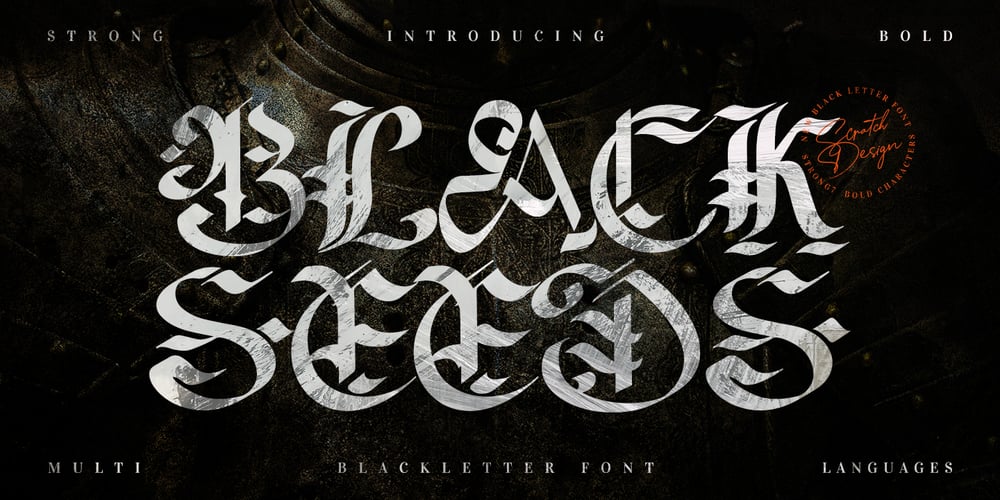
Blackseed
Blackseed font
Blackseed Font Family was designed by Gitayogi Irhandi and published by Scratch Design. Blackseed contains 1 styles and family package options. Introducing Blackseeds – Blackletter font Inspired by Modern Calligraphy style and combination with Gothic Hand Lettering style. Ideal for logos, packaging, quotes, header, poster, merchandise, social media, greeting cards, etc. Each file contains uppercase, lowercase, numerals, basic punctuations, symbol, Multi-language Support.